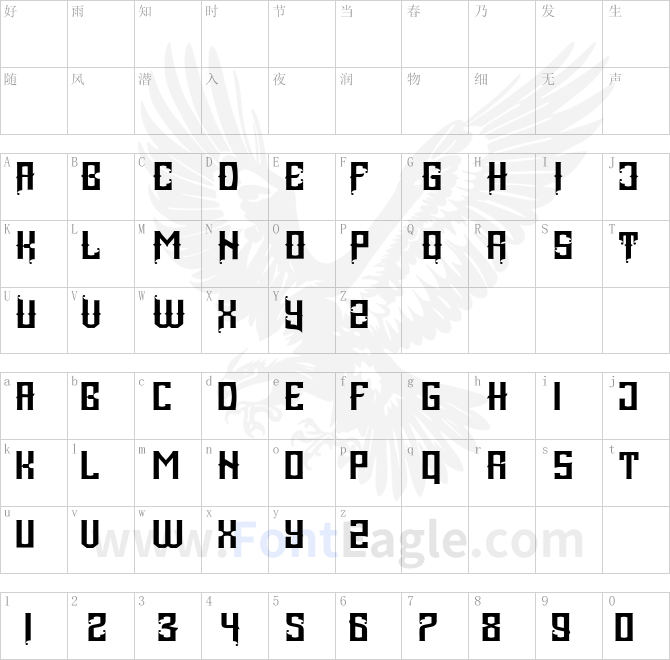
- Font name:Heisenberg
- Font Subfamily:Victorian
- Font Subfamily ID:EndangHidayatakaBangKumisTypefoundry: Heisenberg: 2013
- Font Full Name:Heisenberg
- Postscript:Heisenberg